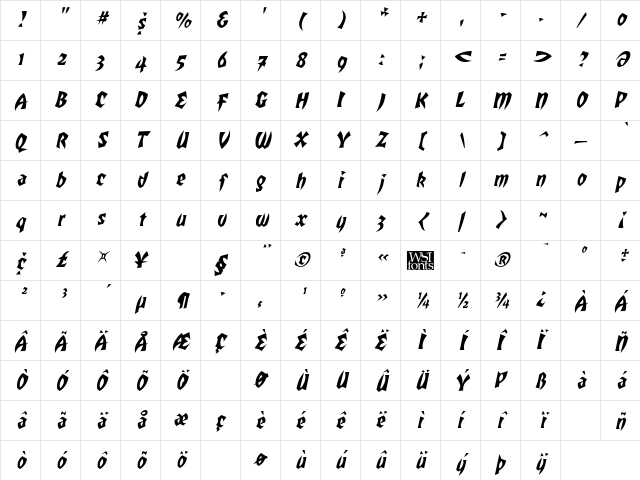
Transylvania is a composed and adaptable typeface that performs quietly and consistently across a wide range of design contexts. The slanted form adds forward momentum and visual energy.
Pro Tip: Use Transylvania for emphasis, pull quotes, and subheadings where its slanted energy can add rhythm to the layout.